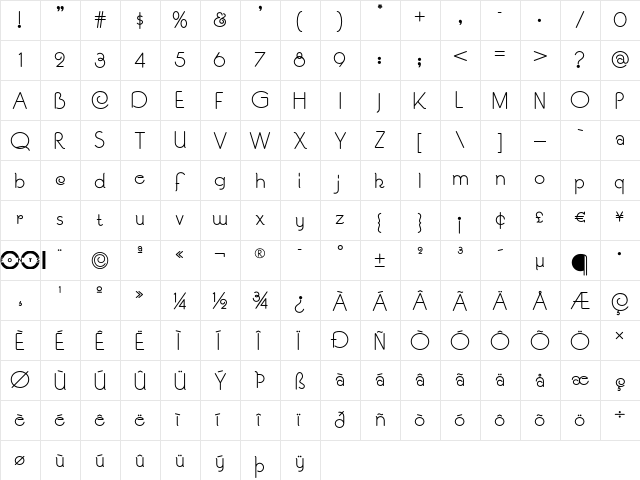
Souci Sans NF Regular
| Foundry | Nick Curtis |
| Designer | Nick Curtis |
Design Context for Souci Sans NF Typeface
Souci Sans NF takes a measured approach to typography — its balanced proportions and neutral character make it a reliable workhorse for both digital and print work.